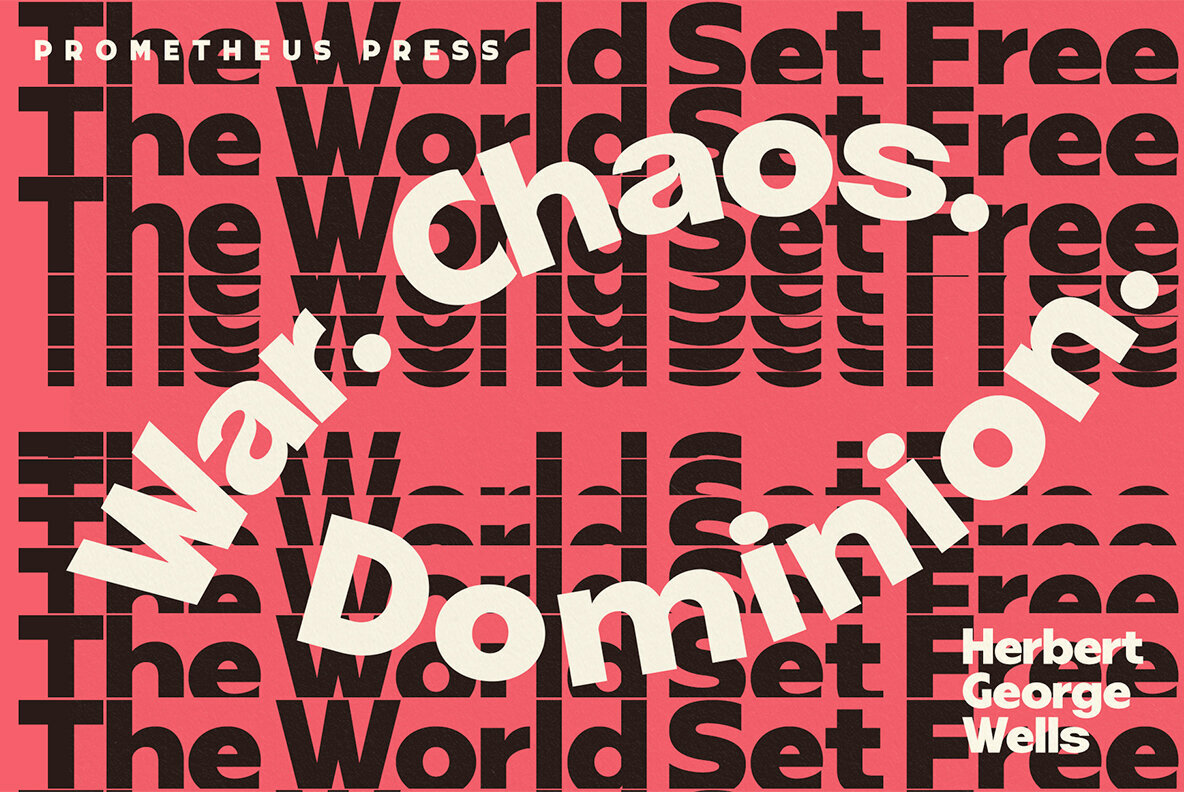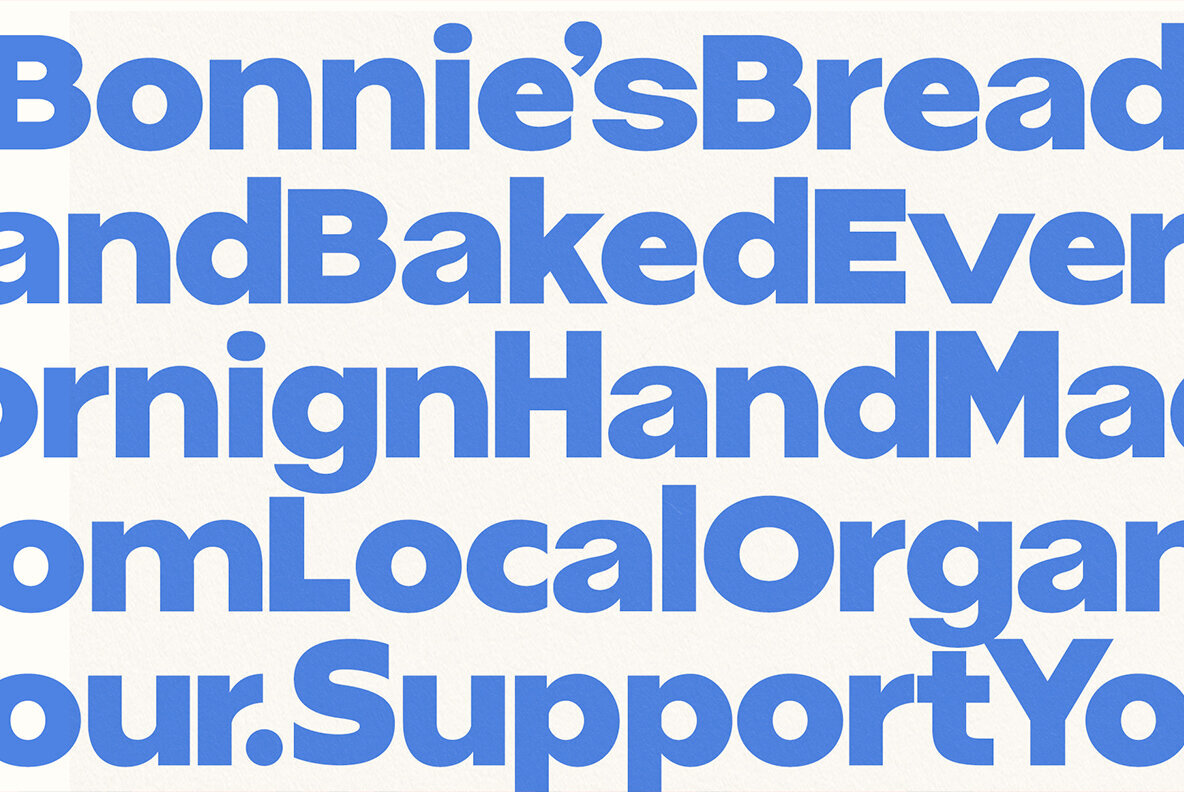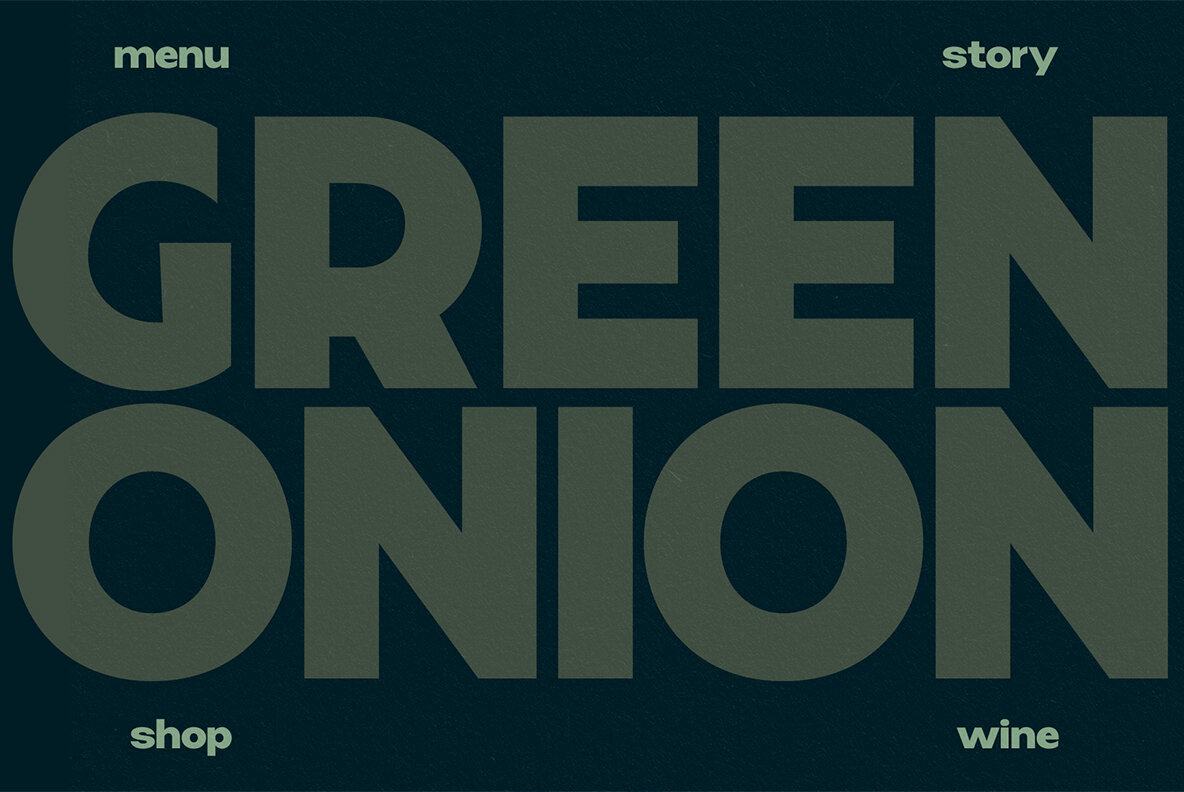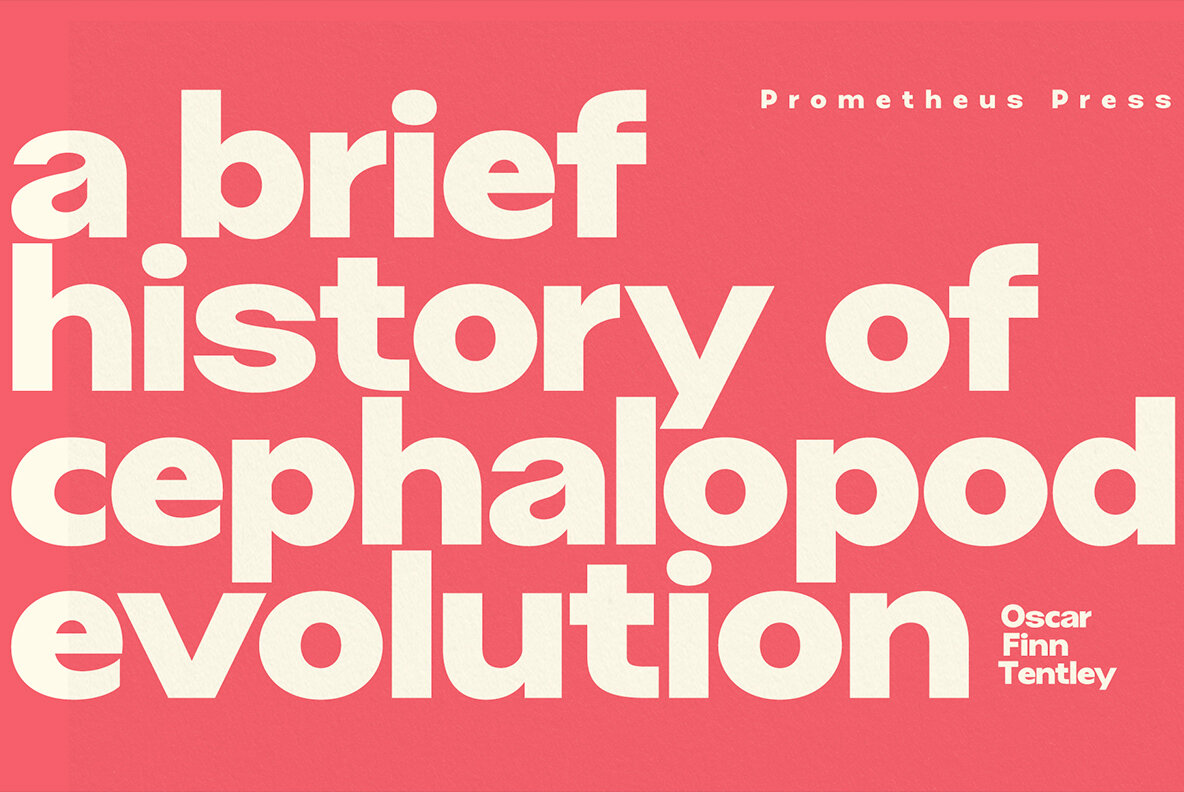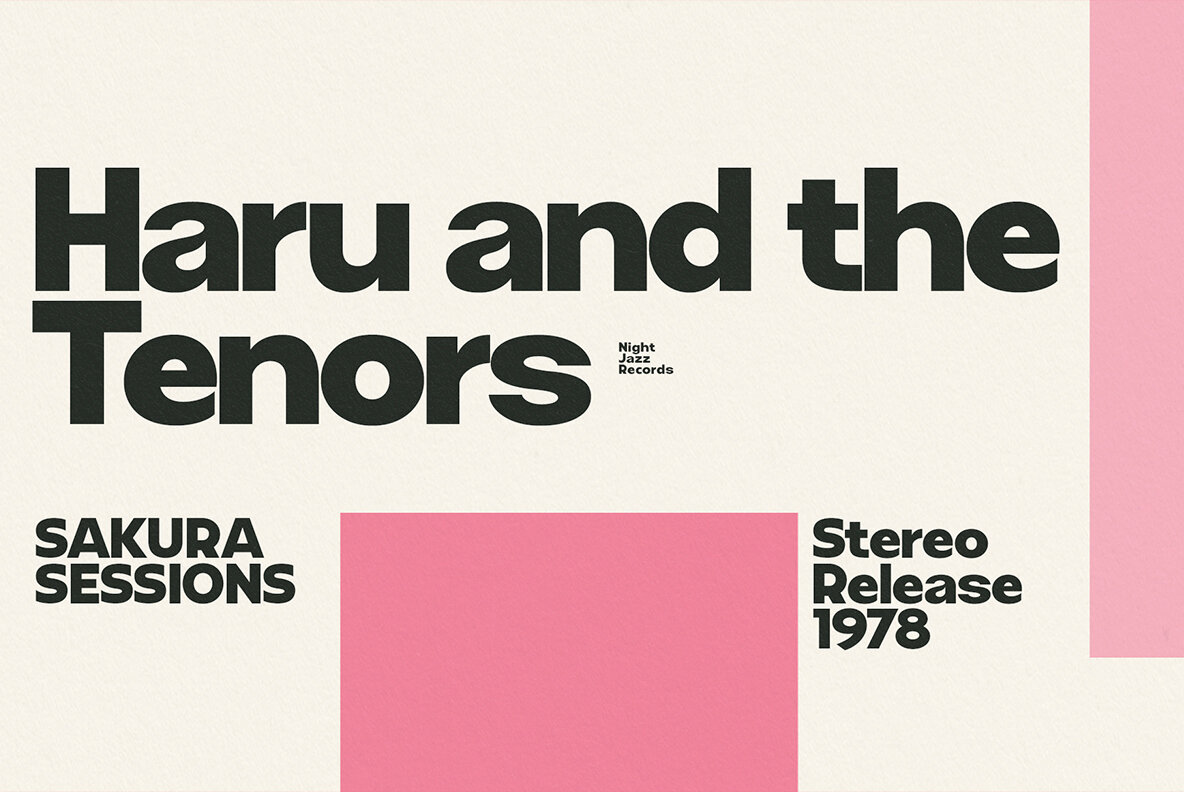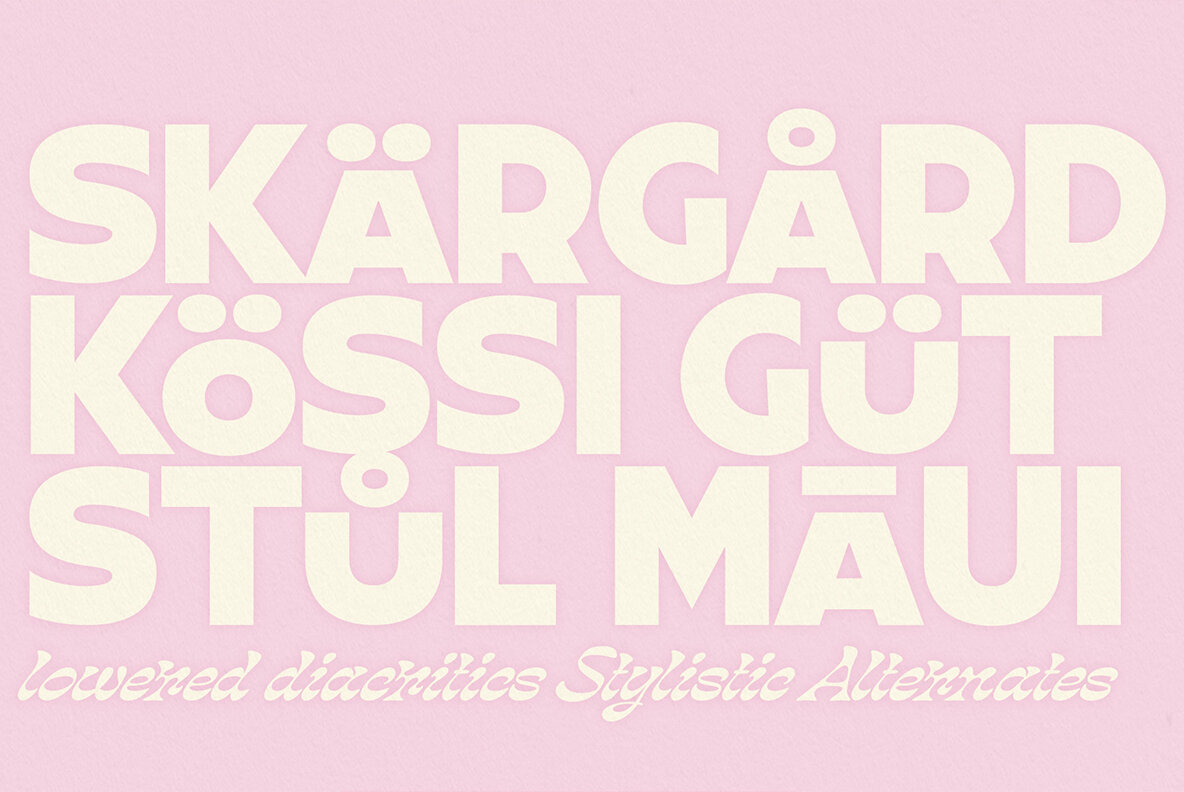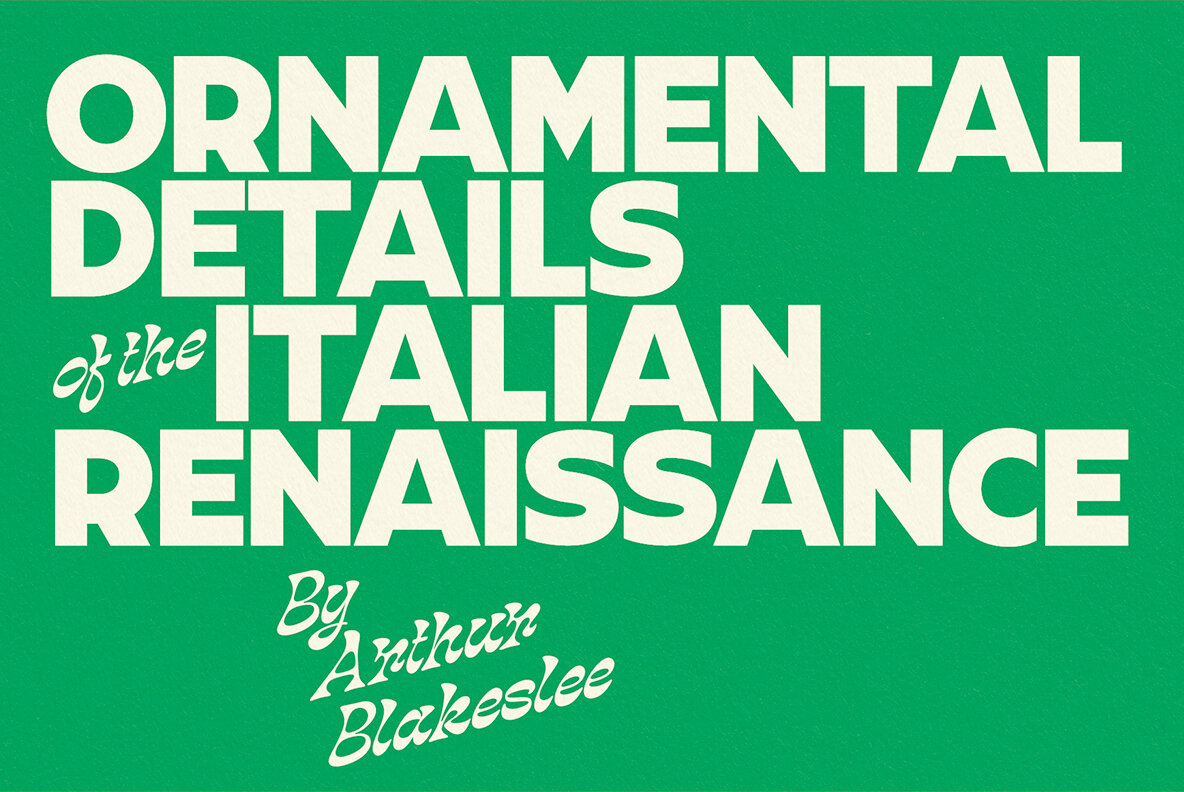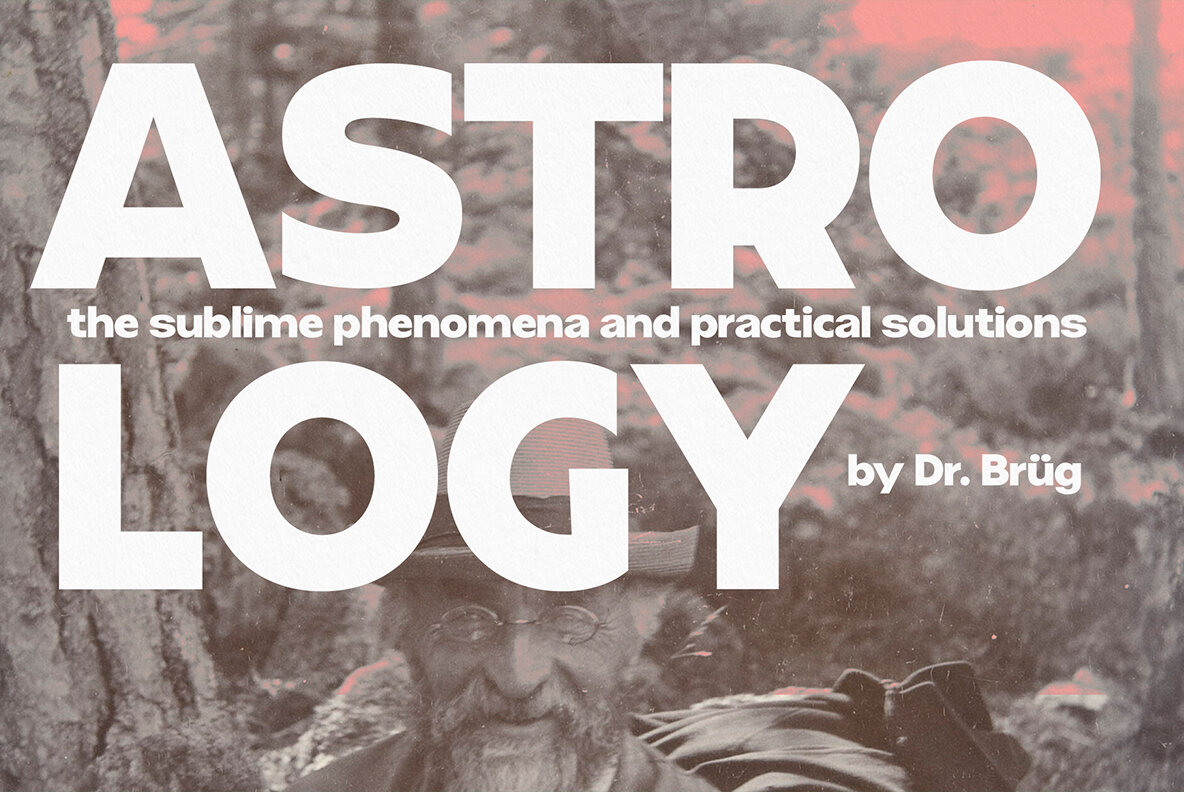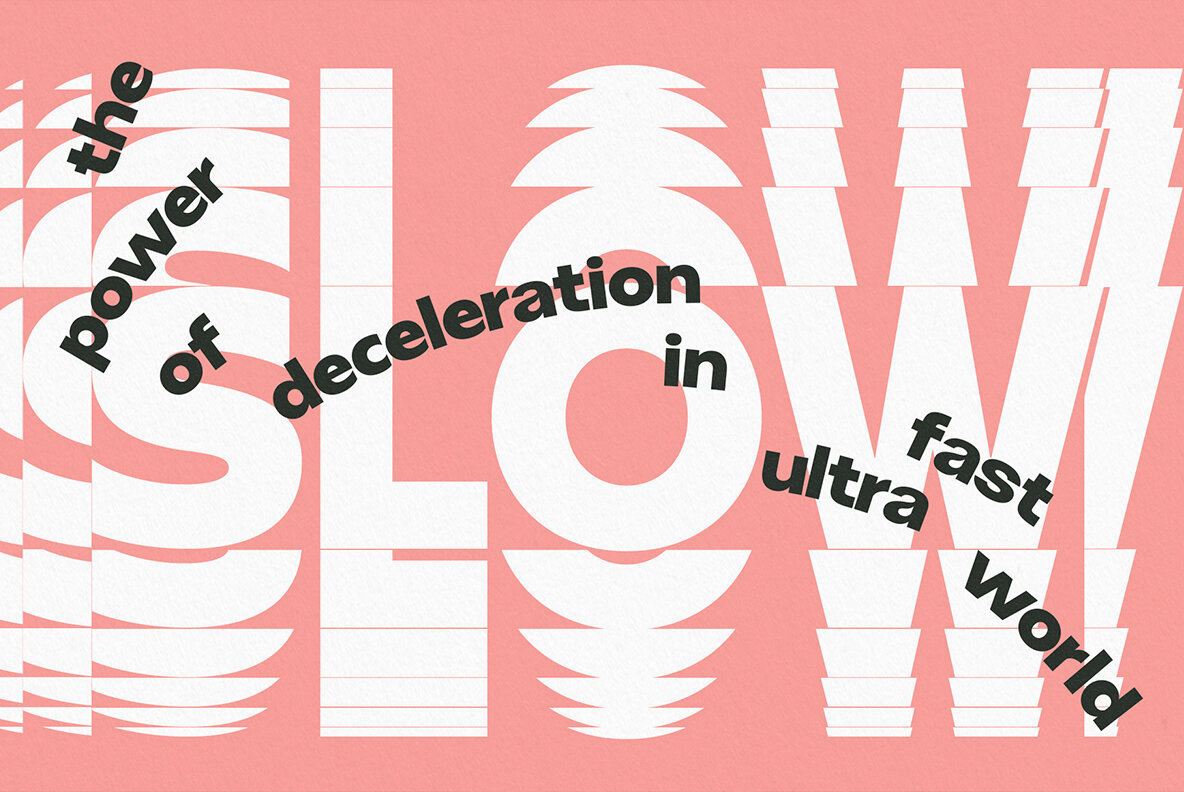
Grafik Poster Font
Grafik Poster Sans is a bold display sans serif font inspired by the graphic design of the 60s and 70s, combining features from different styles. It is an effective type for posters, headlines, and other types of display use. Grafik Poster Sans is equipped with lowered uppercase diacritics, set in Stylistic Alternates, for creating tight text boxes. Try Stylistic Alternates also for triangular quotation marks for a more geometric approach.Grafik Poster Sans: Bold Design with 60s and 70s Inspiration